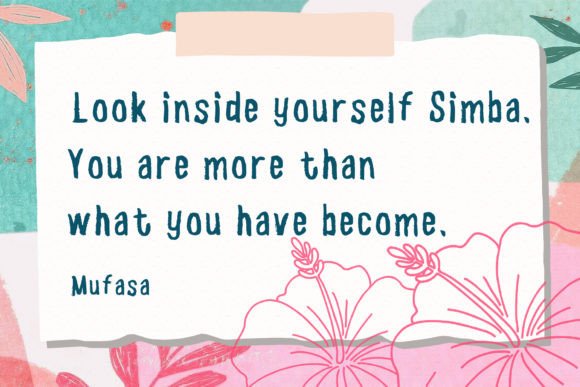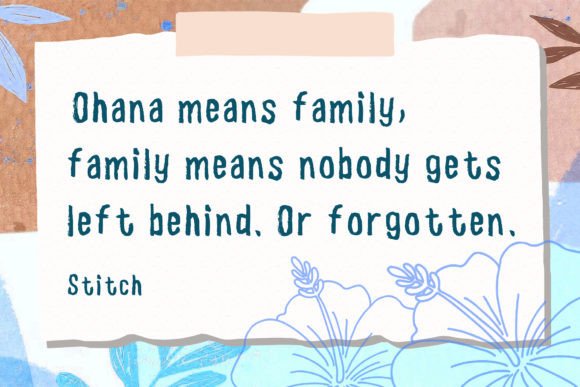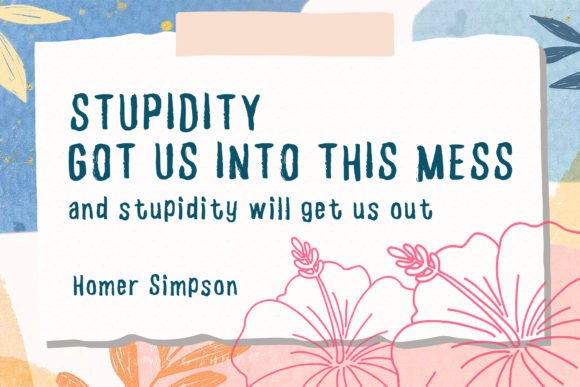
Crayonism Font: Unleash Your Creativity with this Fun Grunge Font
Are you a designer, crafter, or artist looking for a font that can add a touch of playfulness and creativity to your projects? Look no further than the Crayonism Font! This fun grunge font is perfect for script writing, presentations, comics, and other design purposes. Its unique and quirky style is sure to make your work stand out and leave a lasting impression.
What is Crayonism Font?
Crayonism Font is a grunge display font that is designed to resemble the look of crayon drawings. It’s a fun and playful font that is perfect for use on a variety of projects, from cartoon themes to kids and children themes. The font features bold lines, bright colors, and a textured look that gives it a unique and eye-catching appearance.
Uses for Crayonism Font
Crayonism Font is a versatile font that can be used for a wide range of design purposes. Here are some ideas to get you started:
- Cartoon Themes: Use Crayonism Font to create fun and playful cartoon characters, logos, and graphics.
- Kids and Children Themes: This font is perfect for use on kids’ websites, apps, games, and educational materials.
- Food and Beverages: Add a touch of whimsy to your food and beverage branding with Crayonism Font.
- School Projects: Use Crayonism Font to create eye-catching posters, flyers, and presentations for school projects.
- Comics and Graphic Novels: This font is perfect for use in comic books, graphic novels, and other illustrated stories.
Features of Crayonism Font
Crayonism Font has a number of features that make it a great choice for designers and crafters. Here are some of the key benefits:
- Unique and Playful Style: Crayonism Font has a one-of-a-kind look that is sure to make your work stand out.
- High-Quality Design: This font is designed with high-quality lines and curves, making it perfect for use on a variety of projects.
- Easy to Read: Despite its grunge texture, Crayonism Font is easy to read and understand.
- Versatile: This font can be used on a wide range of projects, from digital designs to print materials.
Tips and Tricks for Using Crayonism Font
Here are some tips and tricks to help you get the most out of Crayonism Font:
- Use it Sparingly: Crayonism Font is a bold and playful font, so use it sparingly to avoid overwhelming your design.
- Experiment with Colors: Try out different colors and color combinations to add depth and interest to your design.
- Mix and Match: Combine Crayonism Font with other fonts and design elements to create a unique look.
Crayonism Font is a fun and playful grunge font that is perfect for designers, crafters, and artists looking to add a touch of whimsy to their projects. With its unique and quirky style, high-quality design, and versatility, this font is sure to become a favorite in your design toolkit. So why wait? Download Crayonism Font today and start unleashing your creativity!